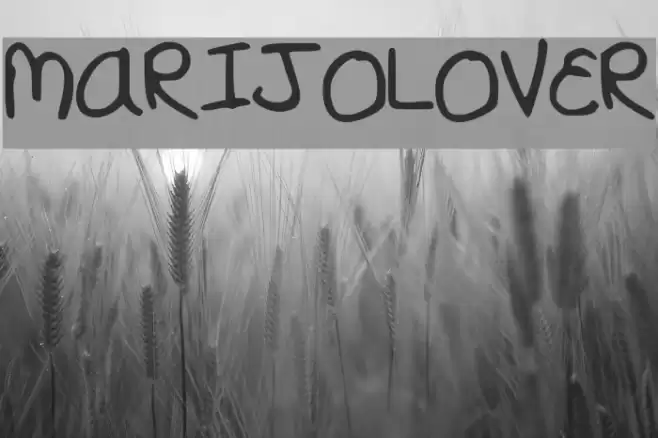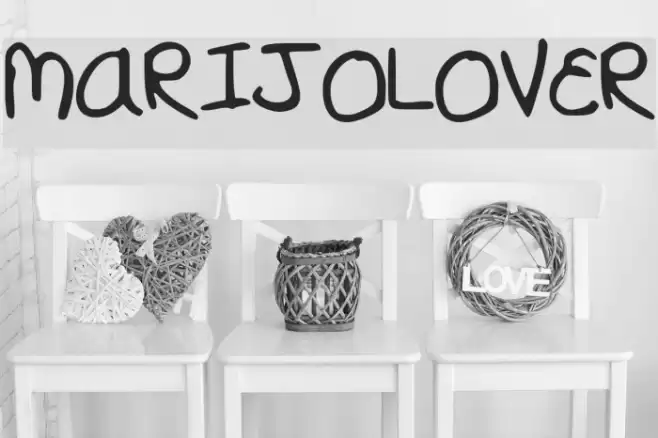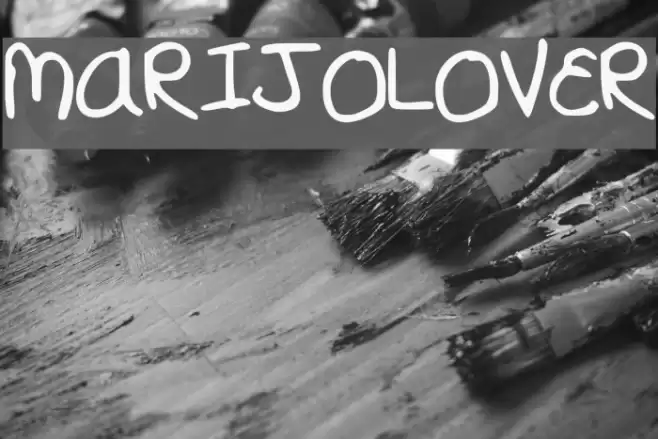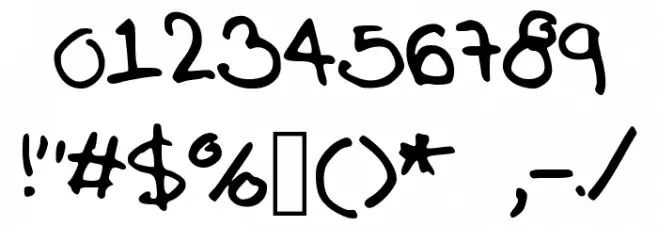
MARIJOLOVER Font
MARIJOLOVER Description
This font features a playful and casual handwritten style, characterized by its rounded and slightly irregular letterforms. The strokes are smooth and fluid, giving it a friendly and approachable appearance. The uppercase and lowercase letters maintain a consistent style, with a slight slant that adds to the informal feel. The numerals and special characters follow the same design principles, ensuring uniformity across all glyphs. This font is ideal for projects that require a personal touch, such as greeting cards, invitations, or informal branding materials.
A playful, handwritten font with rounded, fluid strokes and a casual style from Handwritten fonts.
- Proposed Projects: Ideal for greeting cards, invitations, children's books, and informal branding.
- Overall Style: Casual
- Use Case: Headlines, Informal text, Creative projects